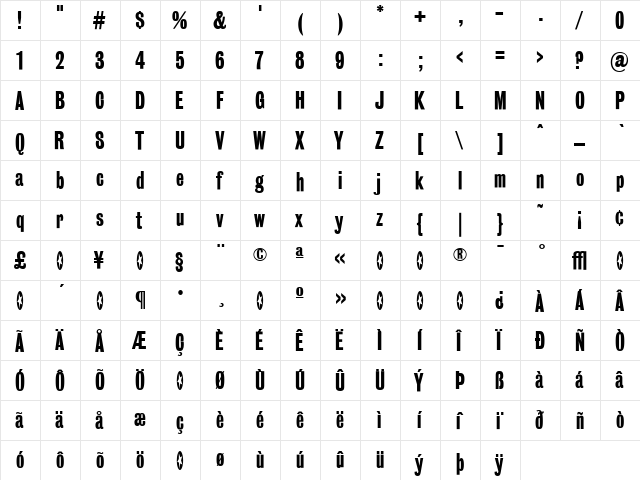
BureauGrotesque-OneFive Regular Font Preview
BureauGrotesque-OneFive Regular
BureauGrotesque-OneFive Regular Font Details
| Foundry | The Font Bureau, Inc |
Design Context for BureauGrotesque-OneFive Typeface
BureauGrotesque-OneFive is a composed and adaptable typeface that performs quietly and consistently across a wide range of design contexts.